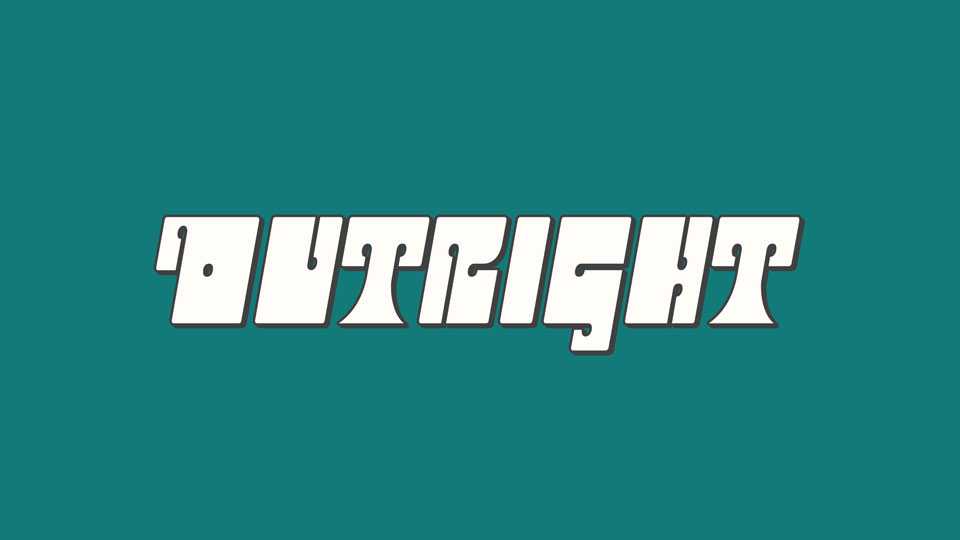
Download Outright font, an Art Nouveau typeface with a unique, fuzzy-logic twist. It blends the organic, flowing curves of the Art Nouveau movement with a modern, unconventional edge.
Designer: Typodermic Fonts